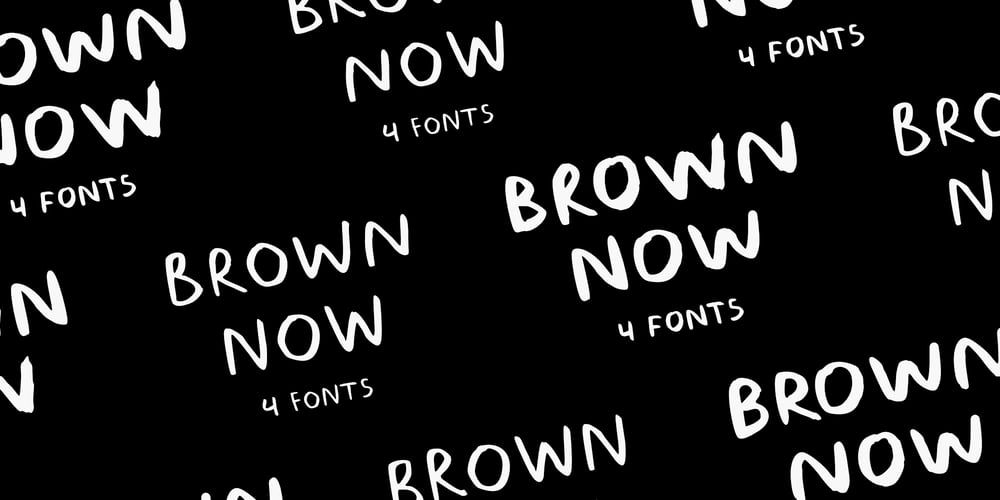
Brown Now
Brown Now font
Brown Now Font Family was designed by Atok Khoirudin and published by Studio Fat Cat. Brown Now contains 4 styles and family package options. Brown Now is a handwritten font family that is designed directly on paper so that it provides a unique experience when you type using it, this font also has alternative characters that also have a different feel when using it.